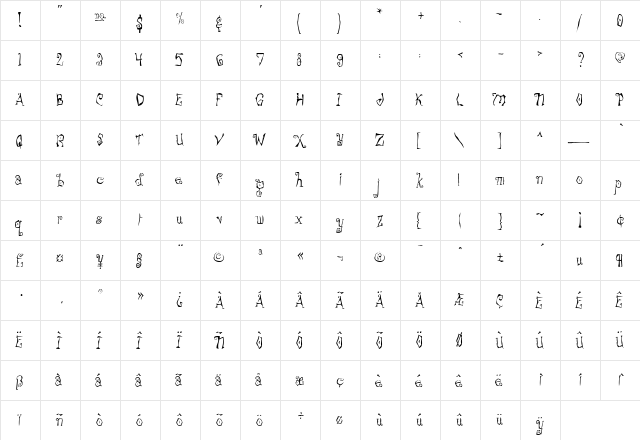
FreakshowScaryA Regular
Design Context for FreakshowScaryA Typeface
FreakshowScaryA leans into the macabre with letterforms designed to disturb and intrigue in equal measure.
Perfect for anything that needs to unsettle — game titles, horror branding, and macabre invitations.
Font Pairing: Pair with a clean neutral sans-serif for body copy to let FreakshowScaryA's character lead without overwhelming the composition.
Pro Tip: Use FreakshowScaryA at larger display sizes for maximum impact. Consider generous tracking to let the disturbing character of each letterform breathe.